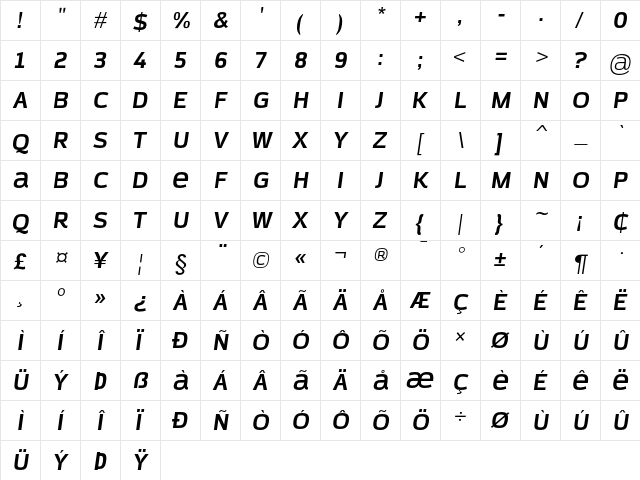
Azoft Sans Bold Italic
Design Context for Azoft Sans Typeface
Azoft Sans is a composed and adaptable typeface that performs quietly and consistently across a wide range of design contexts. The slanted form adds forward momentum and visual energy. The heavy weight commands attention and anchors typographic hierarchies.
Pro Tip: Try Azoft Sans for annotation and caption copy alongside an upright companion — the contrast in angle creates a dynamic but ordered typographic system.